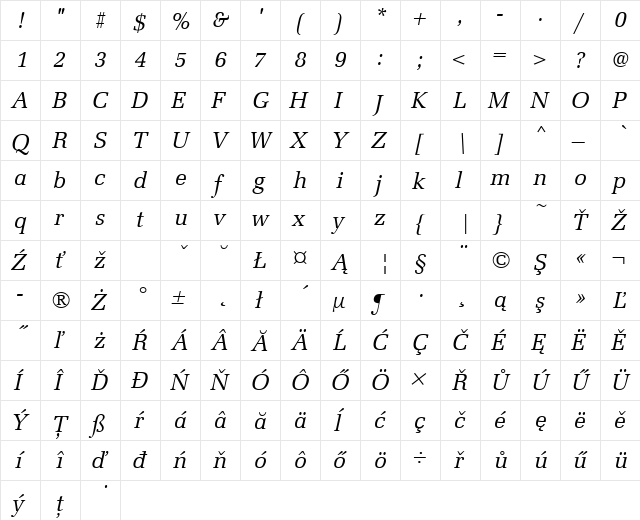
URWLatinoTEE Italic
Design Context for URWLatinoTEE Typeface
URWLatinoTEE takes a measured approach to typography — its balanced proportions and neutral character make it a reliable workhorse for both digital and print work. The dynamic lean of this cut emphasises speed and emphasis in any layout.
Pro Tip: Use URWLatinoTEE for emphasis, pull quotes, and subheadings where its slanted energy can add rhythm to the layout.